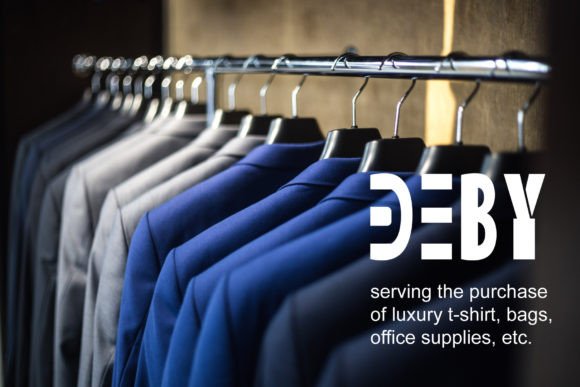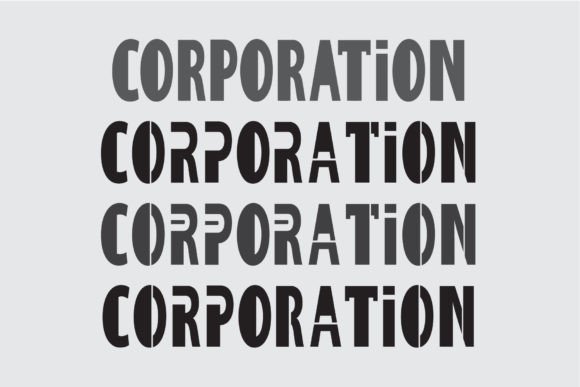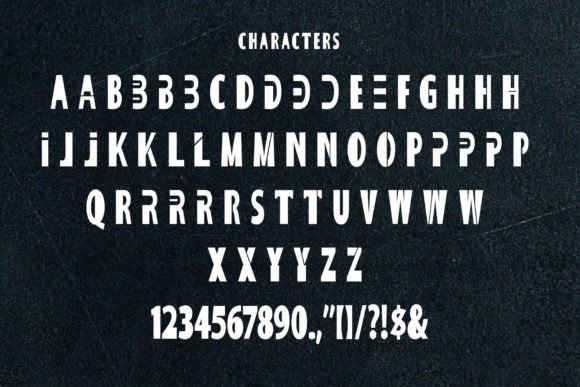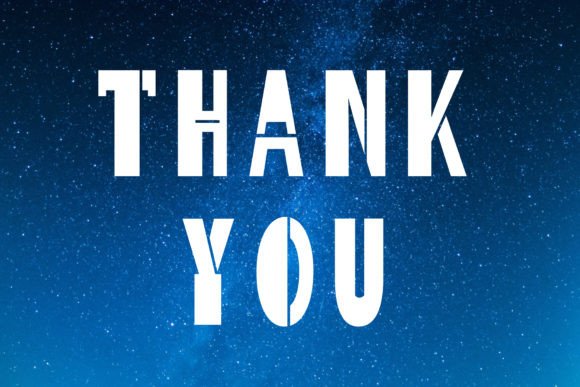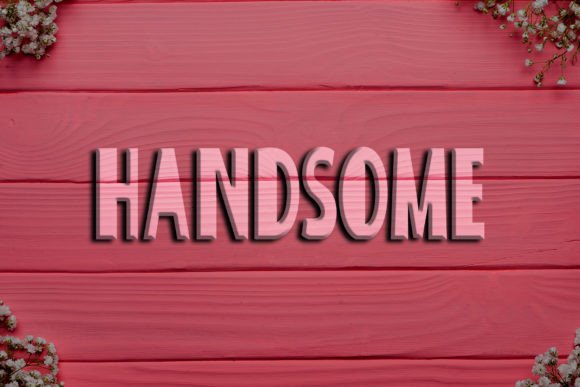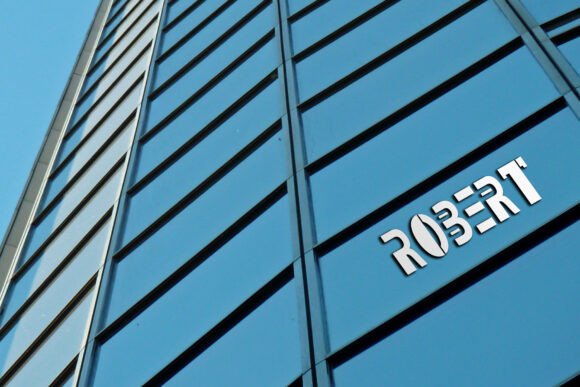
Unlock the Power of Bold Typography: Introducing the Apexori Font
You know that feeling when you’re brainstorming a new design project and suddenly, the perfect font pops into your mind? That’s exactly what happened when I first laid eyes on the Apexori Font. Inspired by the retro bold typography of yesteryear, this font is a game-changer for designers looking to add a playful touch to their work.
The Apexori Font is perfect for designers who want to make a statement. Whether you’re creating a book cover, brochure, or poster, this font is sure to grab attention. Its versatility makes it suitable for a wide range of applications, from packaging and merchandise to logotype and branding. With the Apexori Font, you’ll be able to add a touch of fun and personality to your designs, setting you apart from the rest.
Apexori Font Key Features
- Size: The font comes in multiple weights, ranging from Light to Black, providing flexibility for various design applications.
- Unique Characteristics: The font features a unique blend of geometric and organic elements, resulting in a distinctive and modern aesthetic.
- Language Support: Apexori Font supports a wide range of languages, including Latin, Cyrillic, and Greek scripts, making it a versatile choice for global design projects.
Apexori Font Review
I recently had the chance to work with Apexori Font, and I must say it’s a solid addition to any designer’s toolkit. ✨ Here are some of its strengths:
- Unique and elegant design, perfect for luxury and high-end brands.
- Excellent legibility, making it suitable for both digital and print applications.
- A wide range of font weights and styles, allowing for versatility in typography.
- The font may be too ornate for some brands or applications, potentially overwhelming the design.
- The high-end aesthetic may not be suitable for more casual or playful brands.
- The font family is relatively small, which might limit its versatility in certain projects.
Overall, I’m impressed with Apexori Font’s sophistication and elegance. While it may not be the best fit for every project, it’s a great choice for luxury brands and designers looking to add a touch of high-end flair to their typography.
Getting the Most Out of Apexori Font
Here are some tips to get the most out of Apexori Font:
- Experiment with different font styles and sizes to find the perfect combination.
- Pair Apexori Font with other fonts to create a unique and visually appealing design.
- Use Apexori Font in creative and unexpected ways, such as for headings or body text.
Here are some common use cases for Apexori Font:
- Branding and logo
Alternatives to Apexori Font for Designers
Montserrat is a modern sans-serif font designed for digital media. It is ideal for use in logos, headings, and body text where a clean and minimalist aesthetic is desired. Montserrat is similar to Apexori Font in its geometric and sleek design, but it has a more condensed feel and is better suited for small screens and digital applications.
Inter is a sans-serif font designed by Rasmus Andersson that is highly versatile and suitable for a wide range of applications, from body text to display typography. It has a neutral and clean design that makes it easy to read, and its variable font format allows for easy customization. Inter is a good alternative to Apexori Font for designers who want a more neutral and professional font.
Merriweather is a classic serif font that is ideal for use in body text and publications where a traditional and elegant aesthetic is desired. It has a warm and inviting feel that makes it suitable for use in print and digital media. Merriweather is a good alternative to Apexori Font for designers who want a more traditional and timeless font.